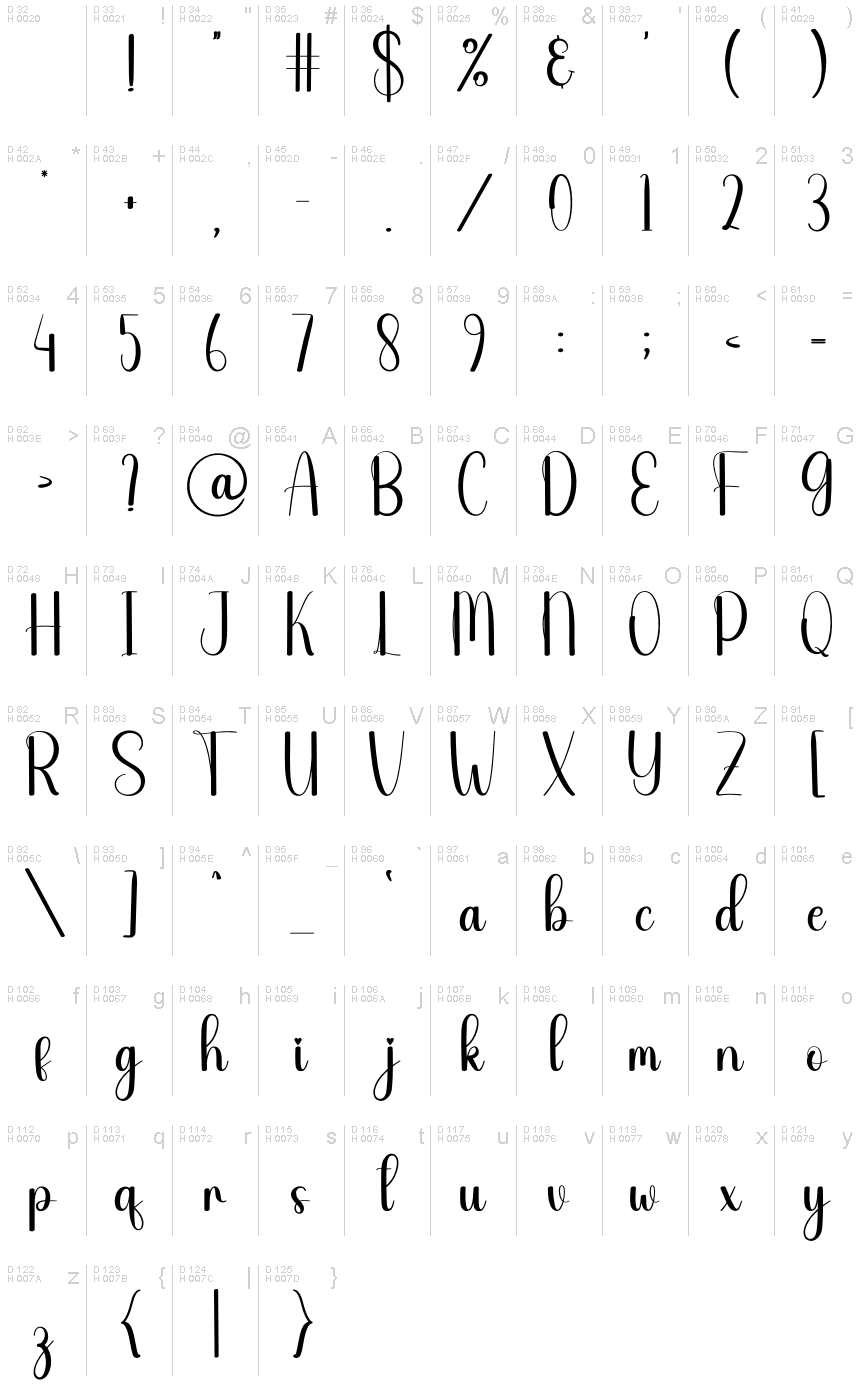
Gentle
Gentle is a captivating handwritten font that exudes a delicate charm. Crafted by designer Andi Moz, its flowing, script-like strokes create a sense of effortless elegance. The font's whimsical flourishes and organic curves lend a touch of sophistication, making it well-suited for a variety of design applications, from editorial layouts and stationery to branding and packaging. Its versatility allows it to seamlessly transition between formal and casual contexts, making it a valuable asset for designers seeking to infuse their projects with a touch of refined artistry.
The font's natural aesthetic lends itself particularly well to projects that aim to convey a sense of warmth, authenticity, and personal touch. From wedding invitations to artisanal product labels, Gentle's distinctive style can elevate the visual appeal and emotional resonance of any design.